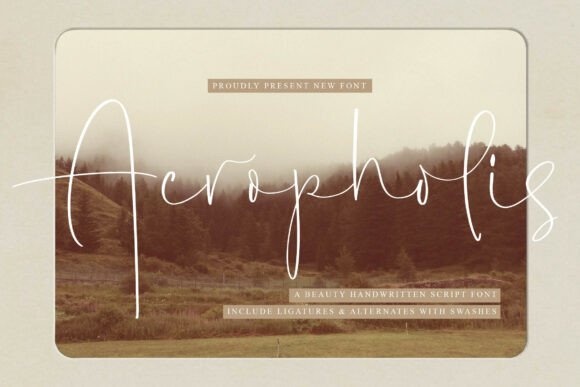
The Elusive Perfect Font: My Encounter with Acropholis
I still remember the design project that had me on the hunt for the perfect font. I was working on a fashion editorial, and my client wanted a font that exuded sophistication while still feeling natural and handwritten. I scoured the internet, tried out countless fonts, but nothing seemed quite right. That was until I stumbled upon Acropholis, a beautiful handwritten script that instantly caught my eye.
What is Acropholis Font?
Acropholis is a stunning handwritten script font characterized by its elongated strokes and vintage appeal. It’s the perfect blend of elegance and whimsy, making it ideal for fashion editorials, logos, packaging, and any project that requires a touch of sophistication.
An Honest Review of Acropholis
What I Love About Acropholis ✨
- ✅ Elegant and sophisticated, perfect for high-end fashion projects
- ✅ Unique, elongated strokes that add a touch of whimsy
- ✅ Natural, handwritten texture that feels organic and authentic
- ✅ Highly versatile, suitable for a wide range of design applications
- ⚠️ Some users may find the font a bit challenging to read at smaller sizes
- ⚠️ Limited availability of stylistic alternates, which may limit creative options
The Story Behind Acropholis
Acropholis was designed by a talented type designer who wanted to create a font that captured the essence of vintage elegance. Inspired by classic calligraphy and handwritten scripts, Acropholis was crafted to be both beautiful and functional. Whether you’re a designer, crafter, or creative hobbyist, Acropholis is the perfect font for anyone looking to add a touch of sophistication to their projects.
Q: What is the best way to use Acropholis in a design project?
A: Acropholis is highly versatile and can be used in a wide range of design applications, from fashion editorials to logos and packaging. Experiment with different OpenType features and glyphs to find the perfect look for your project.
Q: Is Acropholis a difficult font to read?
A: Acropholis is a script font, and as such, it may be challenging to read at smaller sizes. However, at larger sizes, the font is highly legible and elegant.
Q: Can I use Acropholis with other fonts?
A: Yes, Acropholis can be paired with other fonts to create a unique and visually appealing design. Experiment with different font combinations to find the perfect look for your project.